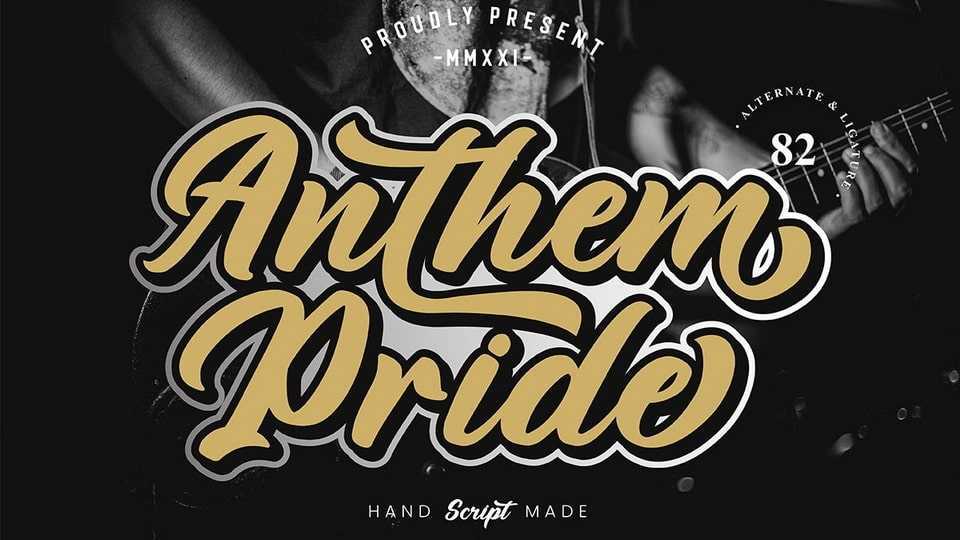
Download Anthem Pride font, an enchanting handwritten typeface. Anthem Pride is a versatile script font has a wide spectrum of applications ranging from greeting cards to headlines.